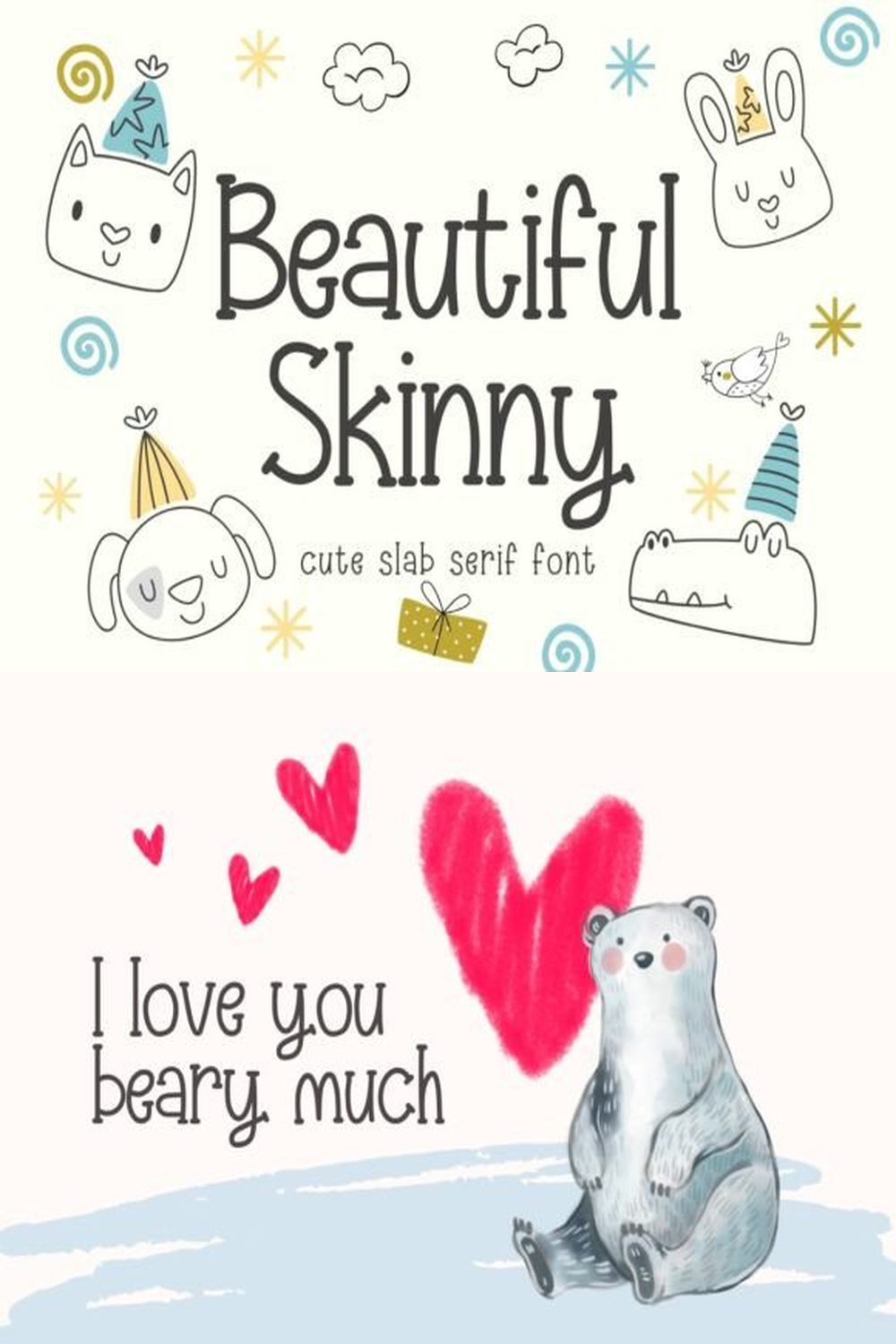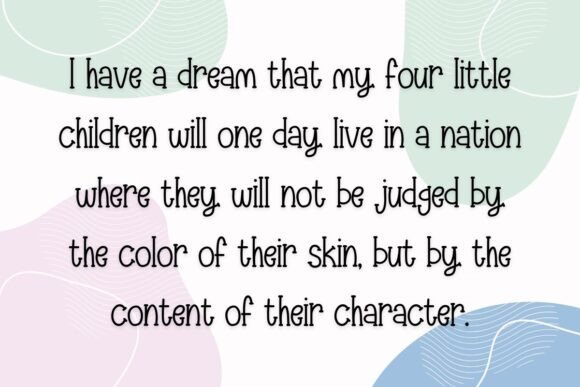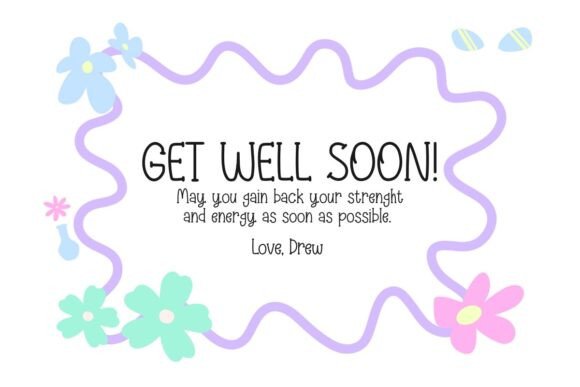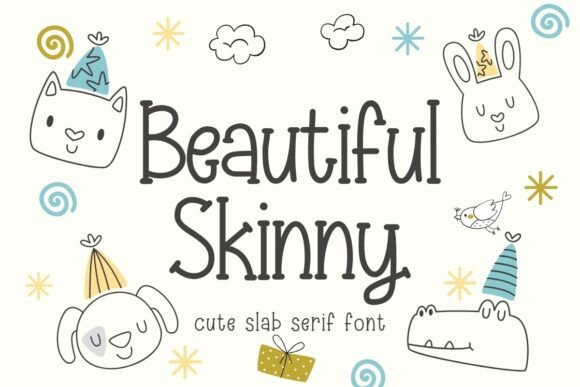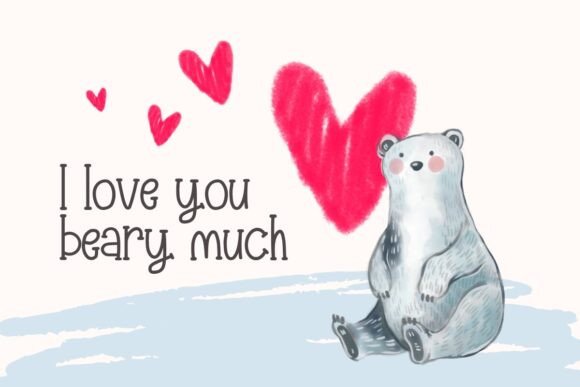
Beautiful Skinny Font: A Cute Slab Serif for Cricut & DIY Projects
About the Beautiful Skinny Font
Crafted with precision, the Beautiful Skinny Font is ready to bring your ideas to life. Beautiful Skinny is a cute and unique slab serif font described by an elegant touch, perfect for your favorite projects. Fall in love with its incredibly distinct and timeless style, and use it to create spectacular designs!